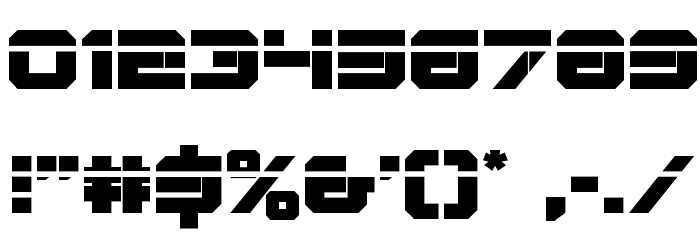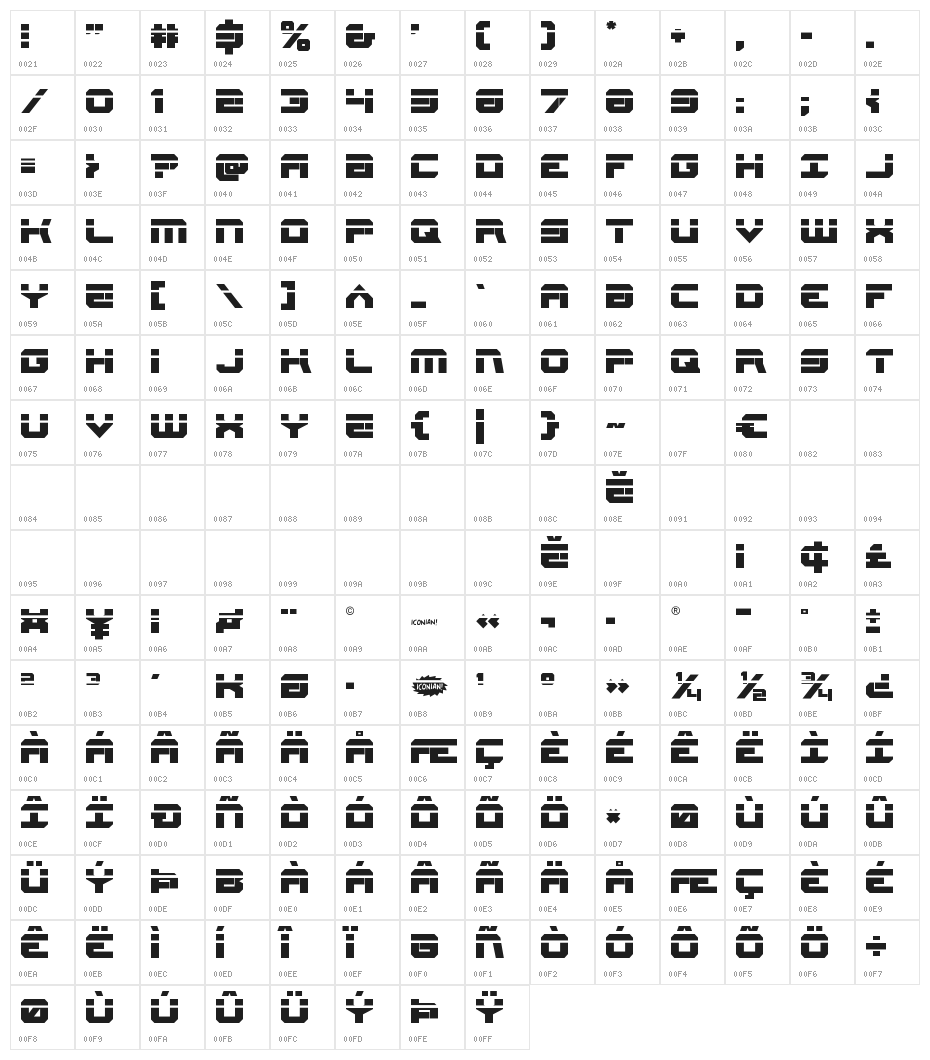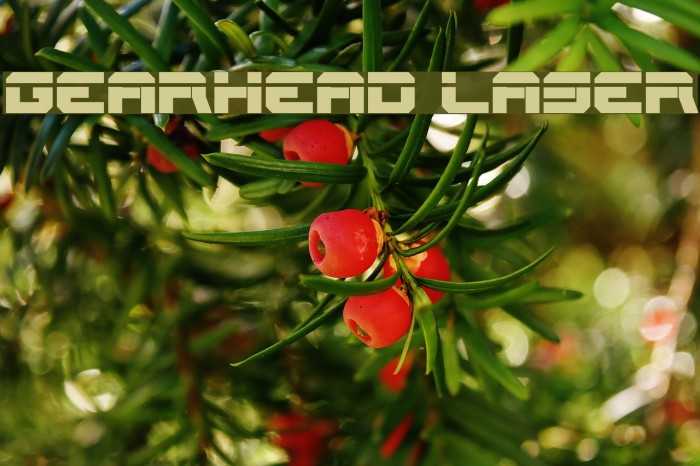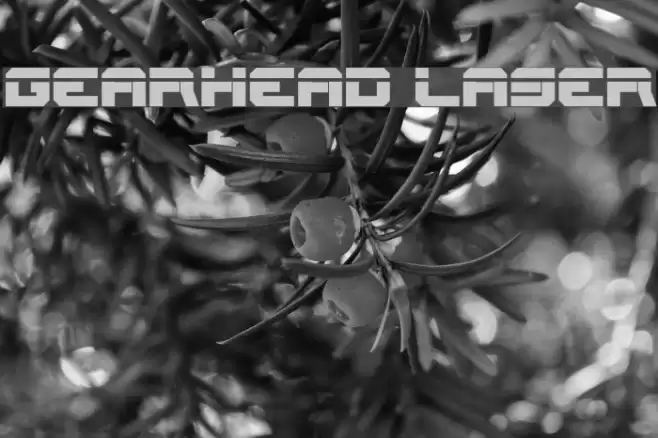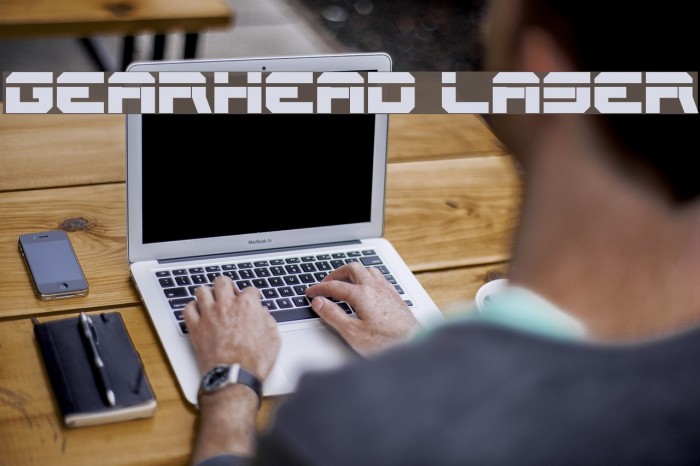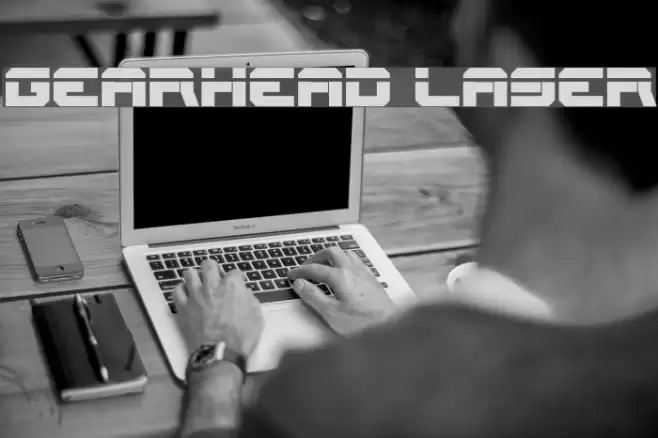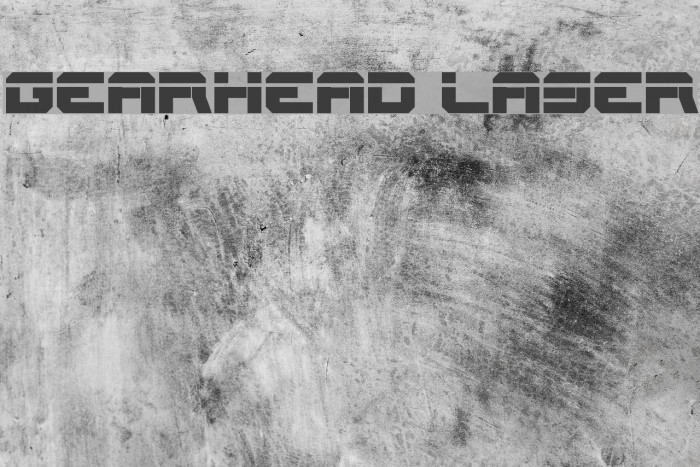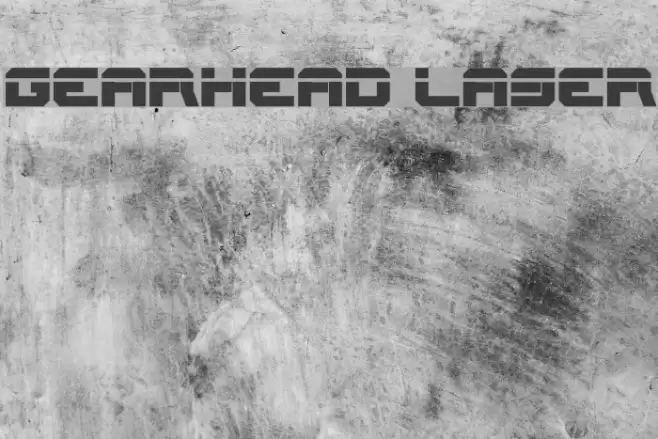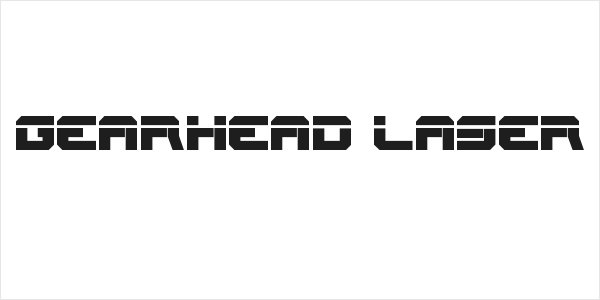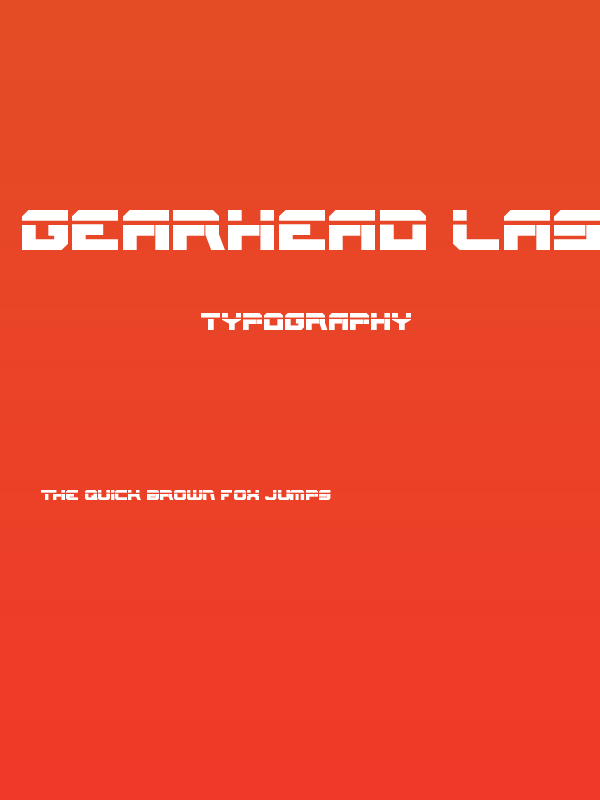
Gearhead Laser Font
Gearhead Laser Description
This font features a bold, geometric design with a futuristic and industrial aesthetic. The characters are constructed with sharp angles and straight lines, creating a mechanical and robust appearance. The uppercase and lowercase letters maintain a consistent style, emphasizing uniformity and precision. The numbers and special characters follow the same design principles, ensuring a cohesive look across all glyphs. This font's unique style makes it stand out, ideal for projects that require a modern and edgy feel.
Proposed ProjectsIdeal for technology branding, video game titles, sci-fi movie posters, and industrial-themed designs.